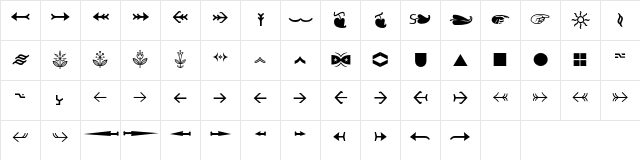
Complete Lisboa Dingbats Arrows Regular glyph index. Displaying only characters natively supported by Lisboa Dingbats Arrows Regular font.
Lisboa Dingbats Arrows is a composed and adaptable typeface that performs quietly and consistently across a wide range of design contexts.